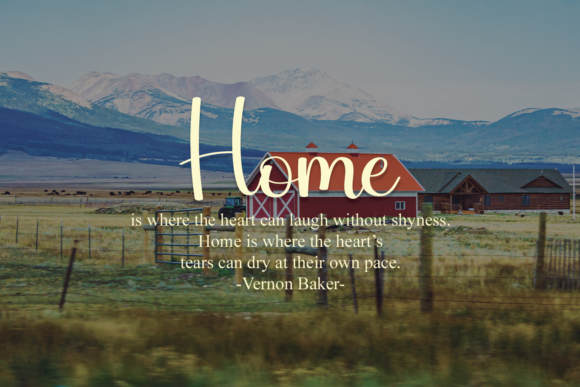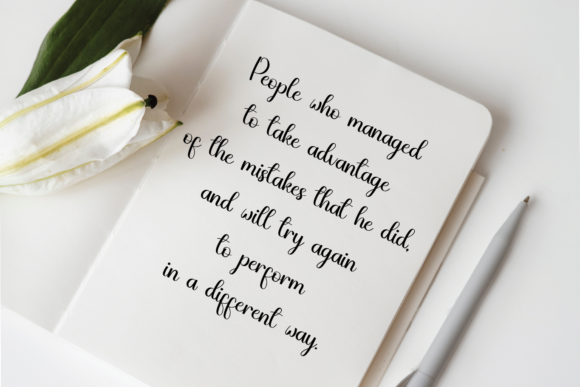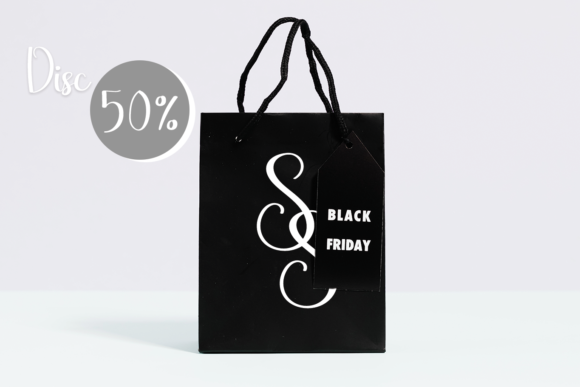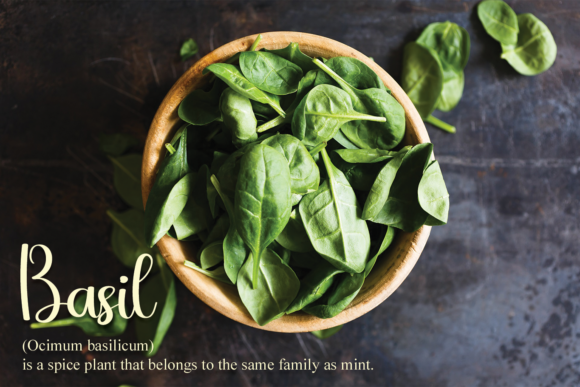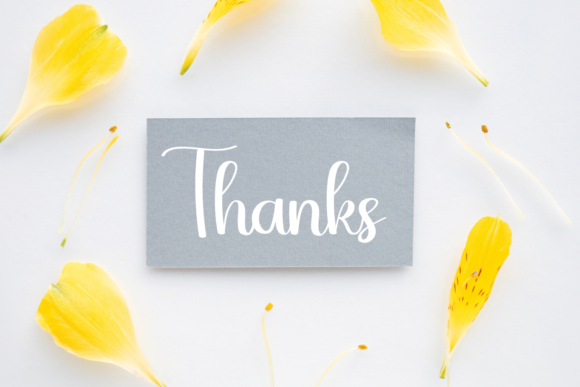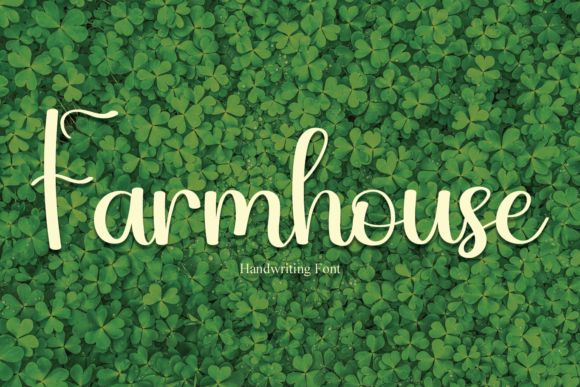
Introducing Farmhouse Font: Elevate Your Designs with Elegance and Sophistication
Are you a designer, crafter, or creative looking for a font that exudes refinement and style? Look no further than Farmhouse Font, a chic and sophisticated script font that’s perfect for adding a touch of elegance to any project. With its stylish alternates and ligatures, Farmhouse Font is the ideal choice for anyone seeking to create visually stunning designs that capture attention and inspire.
Farmhouse Font is a beautifully crafted script font that embodies the perfect blend of sophistication and charm. Its refined lettering and flowing strokes evoke a sense of luxury and refinement, making it perfect for a wide range of creative projects, from branding and advertising to packaging and stationery.
- Stylish Alternates: Farmhouse Font comes with a range of stylish alternates that allow you to add variety and interest to your designs. Whether you’re looking to create a bold statement or a subtle nuance, these alternates have got you covered.
- Ligatures: The font also features beautiful ligatures that seamlessly connect letters, creating a fluid and natural look that’s perfect for titles, headings, and other display text.
- Elegant Lettering: Each letter in Farmhouse Font has been carefully crafted to exude elegance and refinement, making it perfect for projects where sophistication is key.
Why Choose Farmhouse Font?
So why choose Farmhouse Font over other fonts on the market? Here are just a few compelling reasons:
- Versatility: Farmhouse Font is incredibly versatile, making it suitable for a wide range of projects, from digital designs to print materials.
- Easy to Read: Despite its elegant and refined appearance, Farmhouse Font is surprisingly easy to read, making it perfect for body text as well as display text.
- Unique and Memorable: With its distinctive lettering and stylish alternates, Farmhouse Font is sure to make your designs stand out from the crowd and leave a lasting impression.
How to Use Farmhouse Font in Your Designs
Ready to add Farmhouse Font to your designs? Here are a few tips to get you started:
- Pair it with Other Fonts: Farmhouse Font pairs beautifully with other fonts, so don’t be afraid to experiment with different combinations to find the perfect look for your project.
- Experiment with Alternates: Take advantage of Farmhouse Font’s stylish alternates to add visual interest and variety to your designs.
- Use it for Titles and Headings: Farmhouse Font is perfect for titles and headings, where its elegant lettering and ligatures can really shine.
In conclusion, Farmhouse Font is a truly exceptional script font that’s sure to elevate your designs to new heights. With its stylish alternates, ligatures, and elegant lettering, it’s the perfect choice for anyone seeking to add a touch of sophistication and refinement to their creative projects. So why wait? Add Farmhouse Font to your design toolkit today and discover the difference it can make!
Whether you’re a seasoned designer or a crafty DIY enthusiast, Farmhouse Font is sure to inspire and delight. So go ahead, get creative, and see what amazing designs you can bring to life with this beautiful and versatile font!